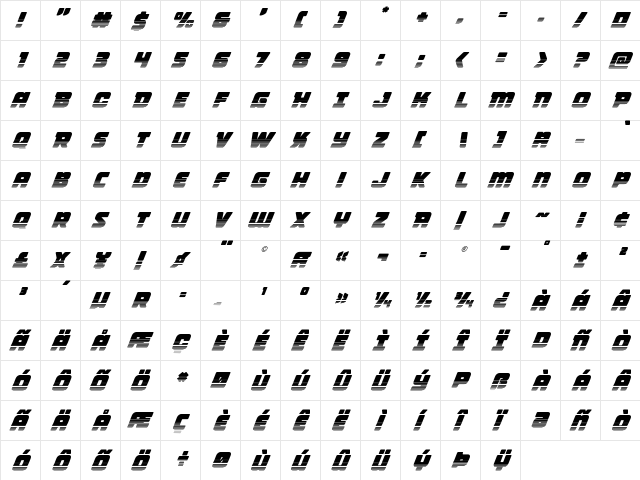
Victory Comics Two-Tone Italic Italic
Design Context for Victory Comics Two-Tone Italic Typeface
Victory Comics Two-Tone Italic trades formality for fun, with bouncy, characterful letterforms that bring warmth and energy to any project. The slanted form adds forward momentum and visual energy.
Font Pairing: Pairs well with a rounded or humanist sans for body copy, maintaining the friendly tone without relying on Victory Comics Two-Tone Italic to carry extended reading.
Pro Tip: Use Victory Comics Two-Tone Italic at larger display sizes where its expressive character can land. Pair with a clean, simple sans for body copy to maintain readability.